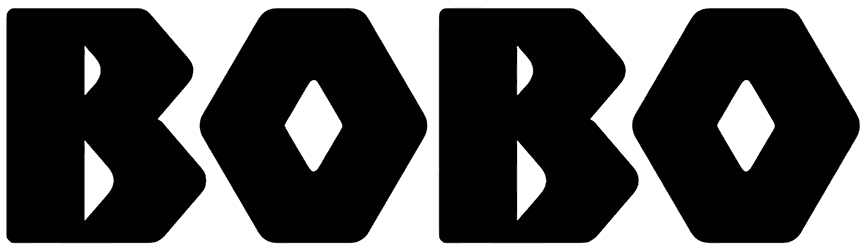
Bobo Font
Bobo is a bold font with a bold, chunky style that is now free to download in RB’s font section.
Even though it doesn’t have lowercase letters or numbers, it’s perfect for a lot of different things, like creative book covers or song titles, cartoons, children’s toys, etc. While you’re here, take a look at the rest of our fonts to see if there’s anything that complements this one.